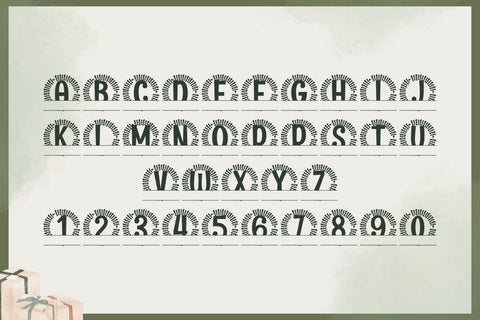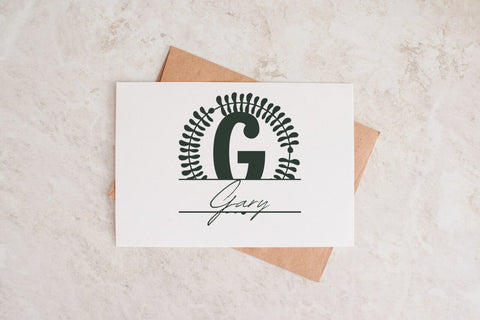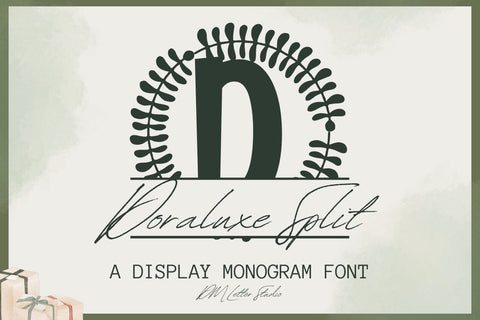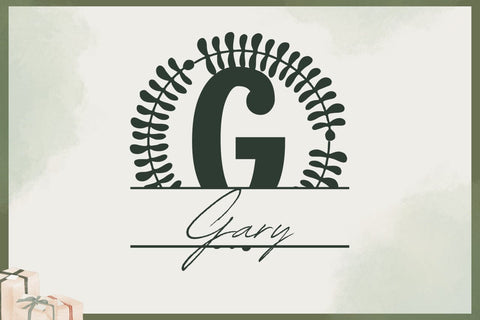
Doraluxe Split Monogram Font
Meet Doraluxe Split Monogram Font
Doraluxe Split Monogram Font turns any initial into a refined, name-ready emblem in seconds. Clean, balanced letterforms project quiet luxury, while a precise horizontal split creates natural space for names, dates, or short words. Because spacing stays even and counters remain open, designs look polished from tiny tags to statement wall art. Use it for wedding keepsakes, family name signs, door hangers, tumblers, ornaments, menus, and boutique packaging. In addition, this split monogram font pairs beautifully with a simple sans or a light script, so every layout stays readable and premium.
Where this split monogram font shines
Set a single hero initial and place the family name inside the split for instant personalization. Next, try couple names for engagement gifts, venue names for signage, or short words like Home, Welcome, and Love for seasonal décor. Since proportions favor clarity, files scale smoothly for Cricut, Silhouette, Glowforge, and laser projects. As a result, batch customization becomes fast and consistent across product lines.
Design tips for Doraluxe Split Monogram
Keep the hero initial large and let white space breathe. Place the split at center or slightly low for a calm baseline. Choose a clean secondary font inside the split to protect legibility on small items. Because the style is poised and airy, metallic foils, textured stocks, and natural woods add instant value. However, keep names concise so the composition stays balanced and reads clearly at thumbnail size.
Uppercase alphabet optimized for split monograms
Matching lowercase, numbers, punctuation
Curves tuned for engraving, foil, laser cutting, and clean vinyl paths
Why makers choose this split monogram font
You want fast personalization that still feels bespoke. Doraluxe Split Monogram Font delivers consistent, high-end name designs in minutes while keeping your shop’s visual language cohesive across many product types.